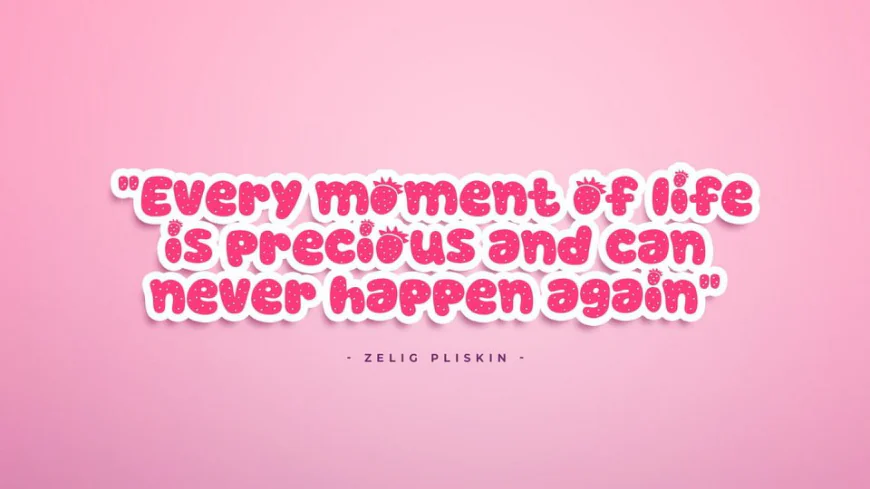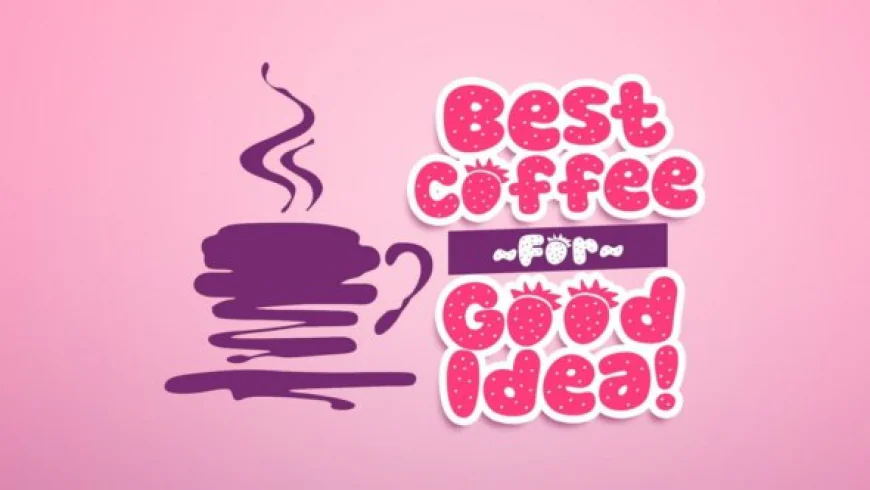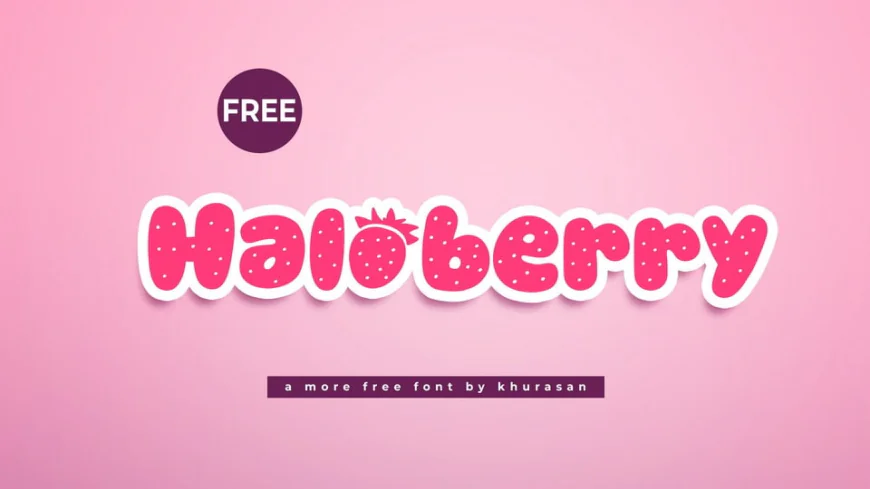
This is an exceptional font that elegantly blends fashion and functionality, transforming the ordinary into refined artistry.
This is an exceptional font that elegantly blends fashion and functionality, transforming the ordinary into refined artistry. Its versatility shines in various applications, from enhancing the appeal of logos to adding drama to magazine headlines.